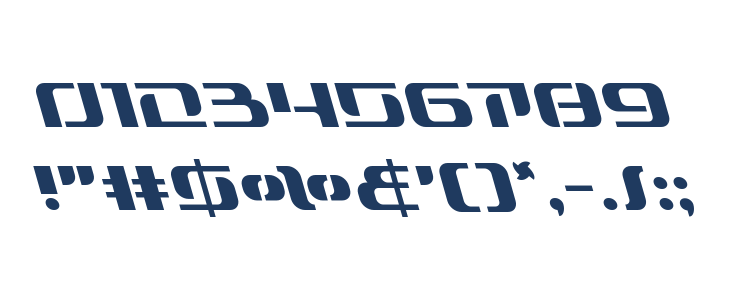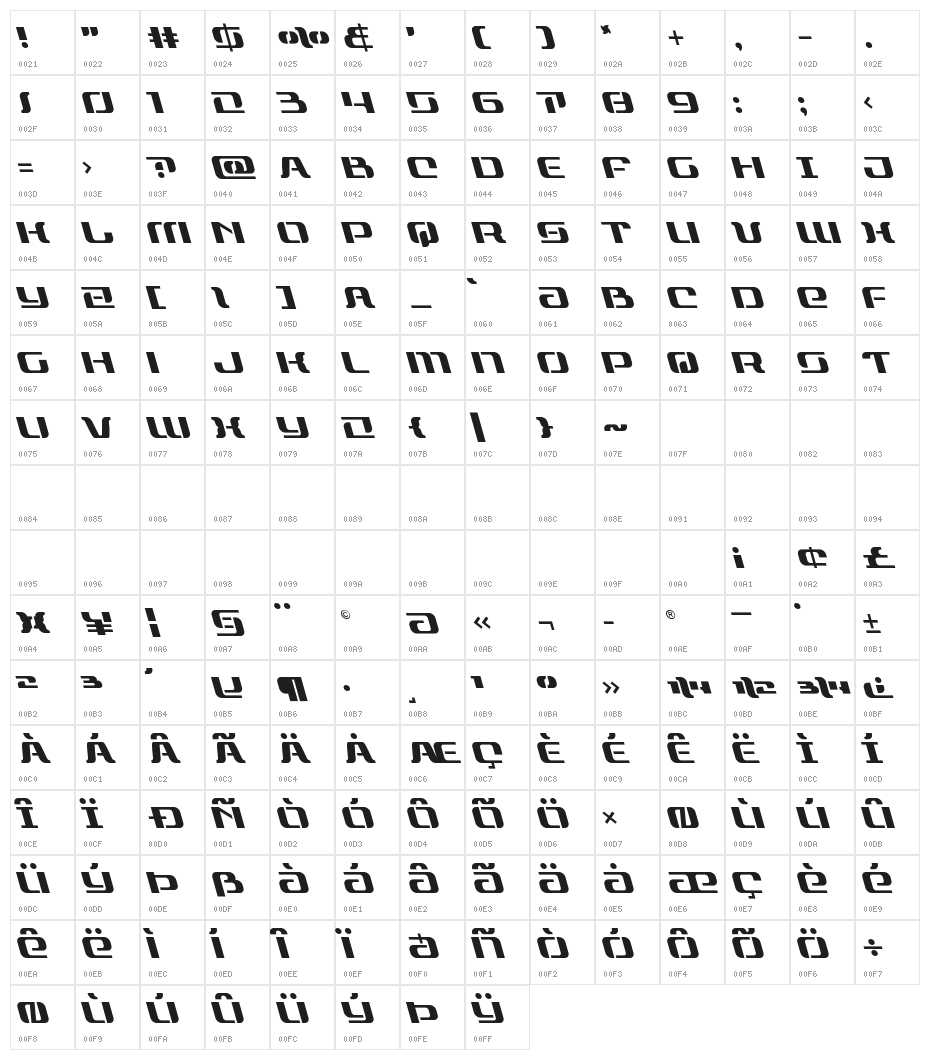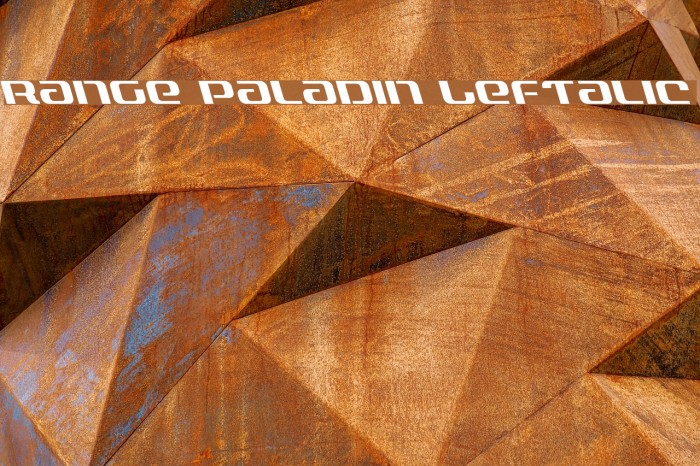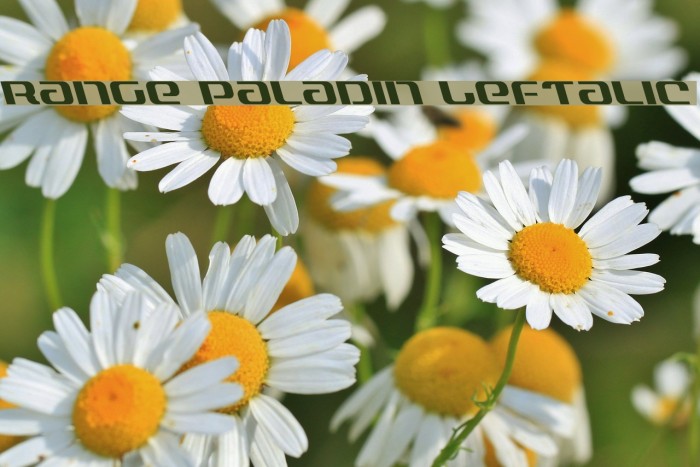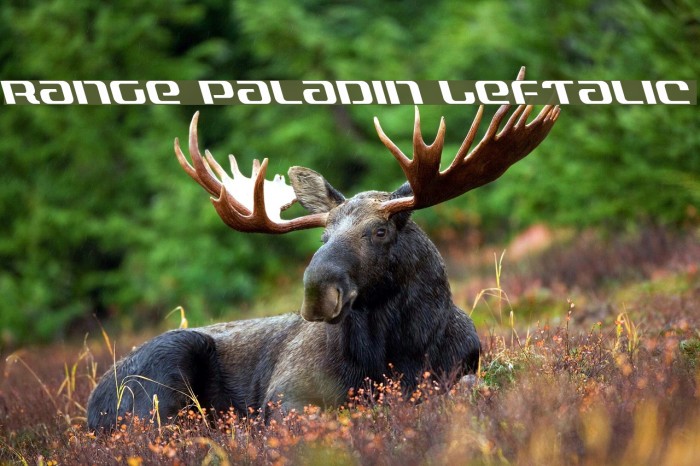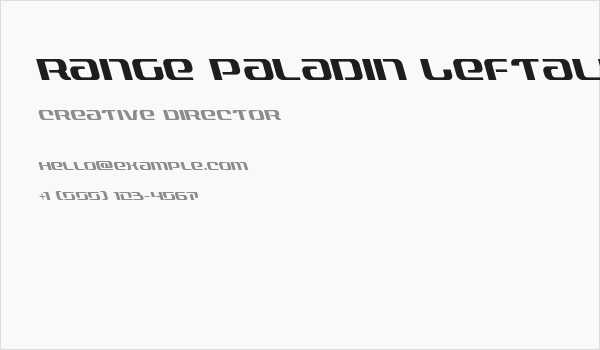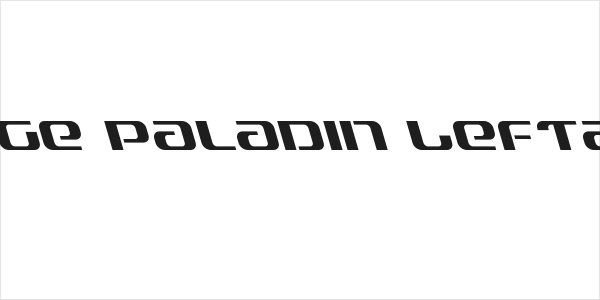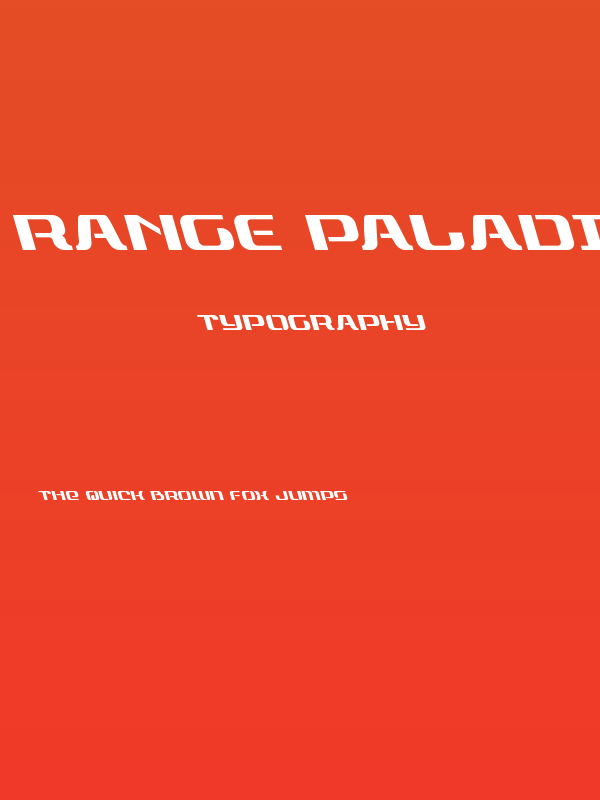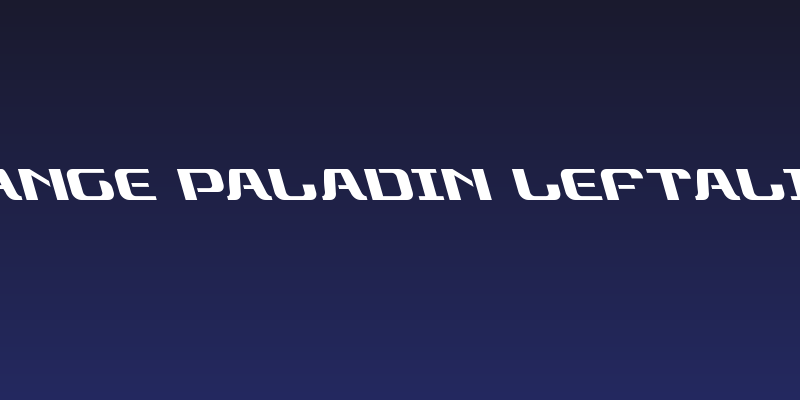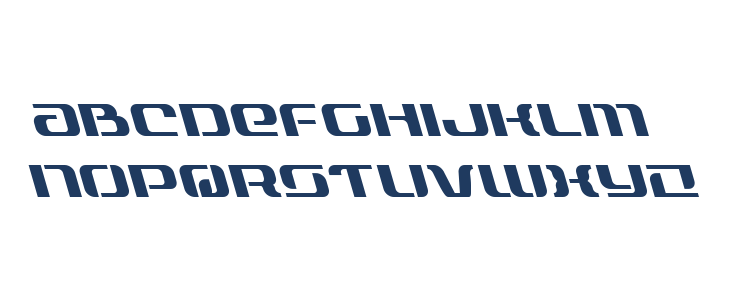
Range Paladin Leftalic Font
Range Paladin Leftalic Description
This font features a bold and futuristic style with a distinct slant to the left, giving it a dynamic and forward-moving appearance. The characters are constructed with a combination of thick and thin strokes, creating a high contrast that enhances readability while maintaining a unique aesthetic. The geometric shapes and sharp angles contribute to its modern and edgy look. The uppercase and lowercase letters are consistent in style, with the numbers and special characters following the same design principles. This font is ideal for projects that require a strong visual impact.
Proposed ProjectsIdeal for sci-fi themed designs, technology branding, video game titles, and modern advertising campaigns.